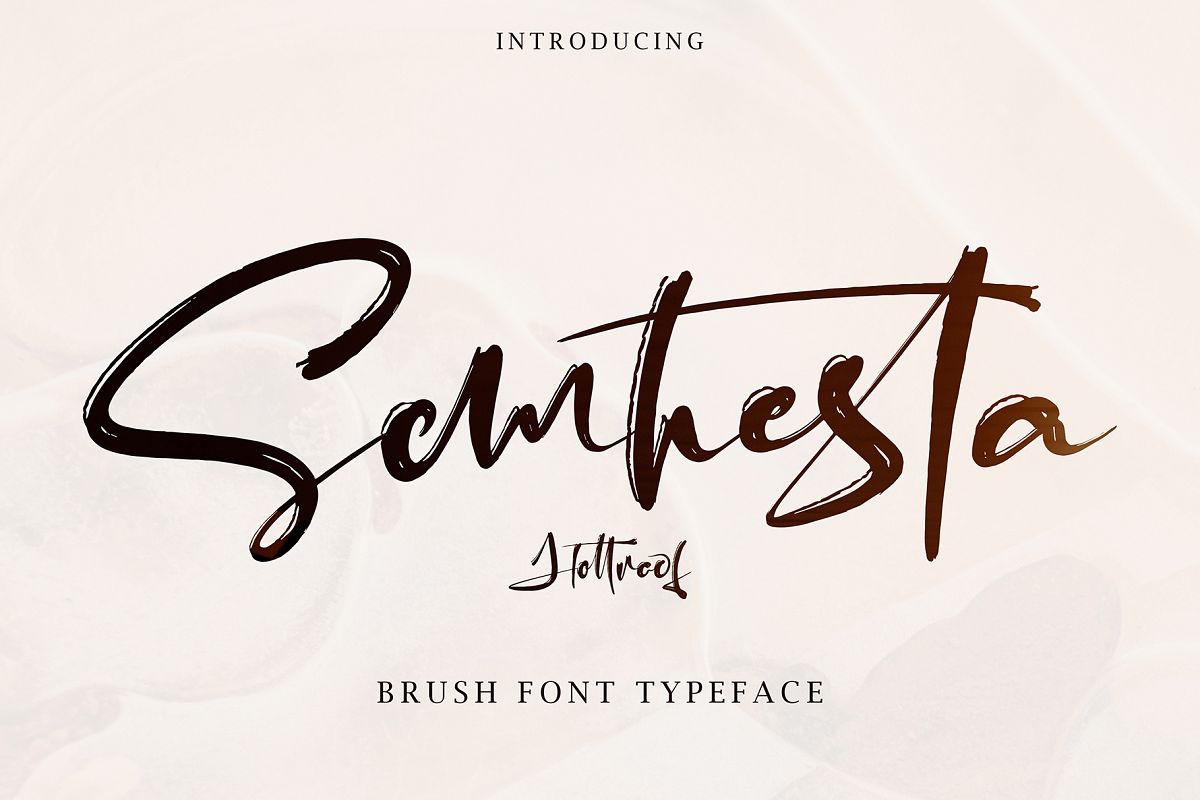
Semhesta
Semhesta Brush Handwritten font style, this font will perfect for many different project ex: quotes, logo, blog header, poster, banding, fashion, apparel, letter, invitation, stationery, etc...